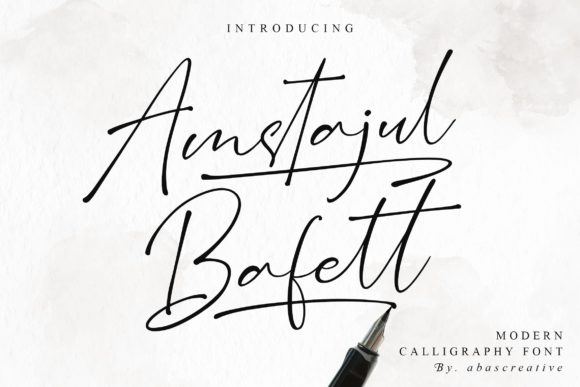
The Perfect Font for Your Next Creative Project: Amstajul Bafett
Have you ever been in the middle of a design project, and suddenly, you just can’t seem to find the right font? I know I have! It was a few months ago when I was working on a wedding invitation project for a client. The design was almost complete, but I just couldn’t find a font that matched the delicate and elegant feel of the overall aesthetic. That’s when I stumbled upon Amstajul Bafett, a dainty and delicate script font that instantly became the perfect fit.
A Personal Review of Amstajul Bafett
I’m so glad I found Amstajul Bafett, and I’m excited to share my thoughts about this beautiful font with you. Here’s what I love:
• ✨ Delicate and elegant design: Amstajul Bafett is a stunning script font that adds a touch of sophistication to any design project.
• ✅ PUA encoded for easy access: This font is PUA encoded, which means you can easily access all the glyphs and swashes without any hassle.
• 🎉 Versatile and multifaceted: Amstajul Bafett is perfect for a wide range of design projects, including wedding invitations, stationery, photography, social media posts, product packaging, greeting cards, and more!
While Amstajul Bafett is an amazing font, it’s not perfect. Here are a few small quirks to keep in mind:
• 🤔 Limited use in bold or large sizes: Amstajul Bafett is best used in smaller sizes or as a display font in elegant, cursive scripts. It may not be the best choice for bold or large text.
• ⚠️ Some letters may require manual kerning: As with any script font, some letters may require manual kerning to achieve the perfect spacing and flow.
The Story Behind Amstajul Bafett
Amstajul Bafett was designed with love and care by a talented font designer who’s passionate about creating beautiful, elegant typography. The designer’s inspiration came from traditional calligraphy and handwriting, blended with modern sensibilities and aesthetics. The result is a font that’s both timeless and trendy, perfect for a wide range of creative projects.
What is Amstajul Bafett? Amstajul Bafett is a dainty and delicate script font perfect for creative projects, wedding invitations, stationery, and more!
Is Amstajul Bafett PUA encoded? Yes, Amstajul Bafett is PUA encoded, making it easy to access all the glyphs and swashes.